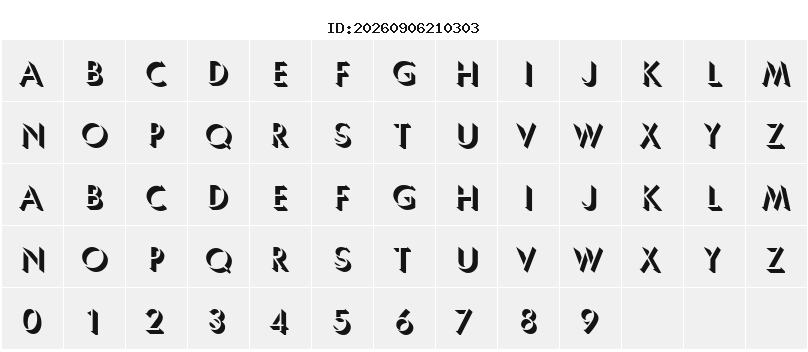
Usambara Preview
• Font Name: Usambara
• Full Font Name: Usambara-Regular
• PostScript Name: Usambara-Regular
About Usambara.ttf
Usambara.ttf is a modern, elegant sans-serif font designed for ultimate readability and visual harmony. Perfect for branding, headlines, web design, and print materials.